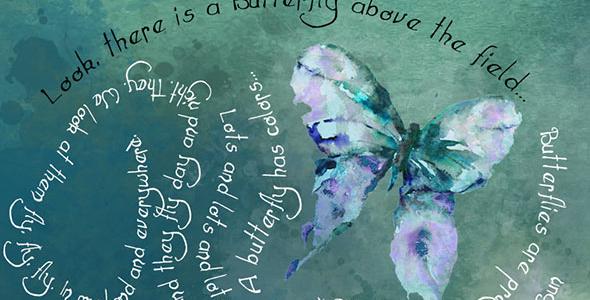
Hand Written Font Emma
Hand written font in a Vintage style. It includes upper case, lower case characters, numbers, symbols and several (10) “&” drawn symbols, which makes it great for old looking logos, branding, vintage text and even websites (web fonts are included).